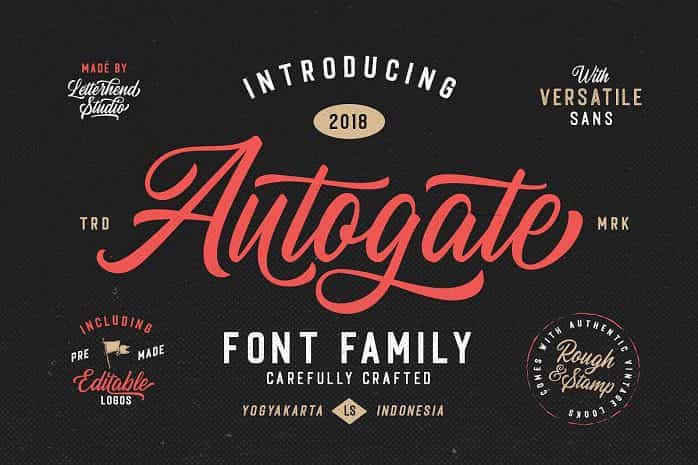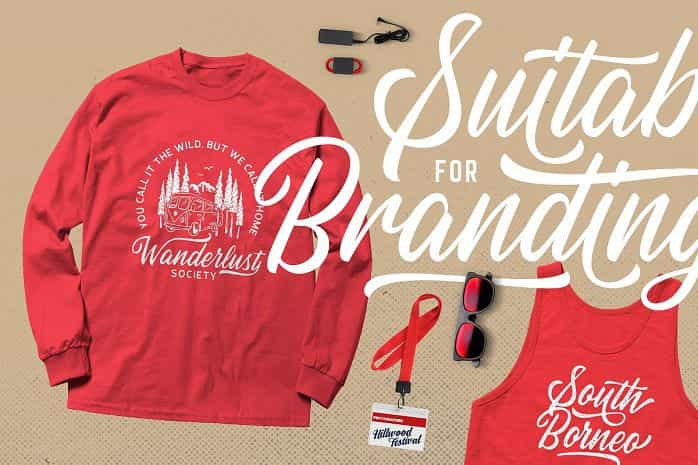
Introducing Autogate Font Duo. The classic style is just perfect for you who requires a typeface especially logotype, apparel, invitation, branding, packaging and advertising. This typeface comes in uppercase letters as well as lowercase ones along with punctuations symbols & numerals 09 stylistic set alternate ligatures etc